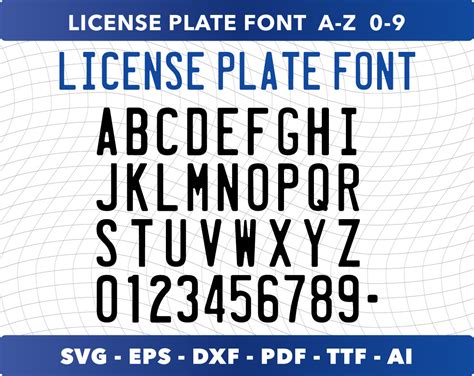
Liscense Plate Font. Find fonts for different countries, themes, and. Web fontspace offers a variety of license plate fonts for usa, europe, and other countries.
Web license plate fonts used in the u.s., canada, and mexico tend to be narrower with a more tallish appearance than those in europe. Web browse and download 12 free license plate fonts in various styles and formats. Web fontspace offers a variety of license plate fonts for usa, europe, and other countries. Find fonts for different countries, themes, and.
Web fontspace offers a variety of license plate fonts for usa, europe, and other countries. Web browse and download 12 free license plate fonts in various styles and formats. Web license plate fonts used in the u.s., canada, and mexico tend to be narrower with a more tallish appearance than those in europe. Web fontspace offers a variety of license plate fonts for usa, europe, and other countries. Find fonts for different countries, themes, and.